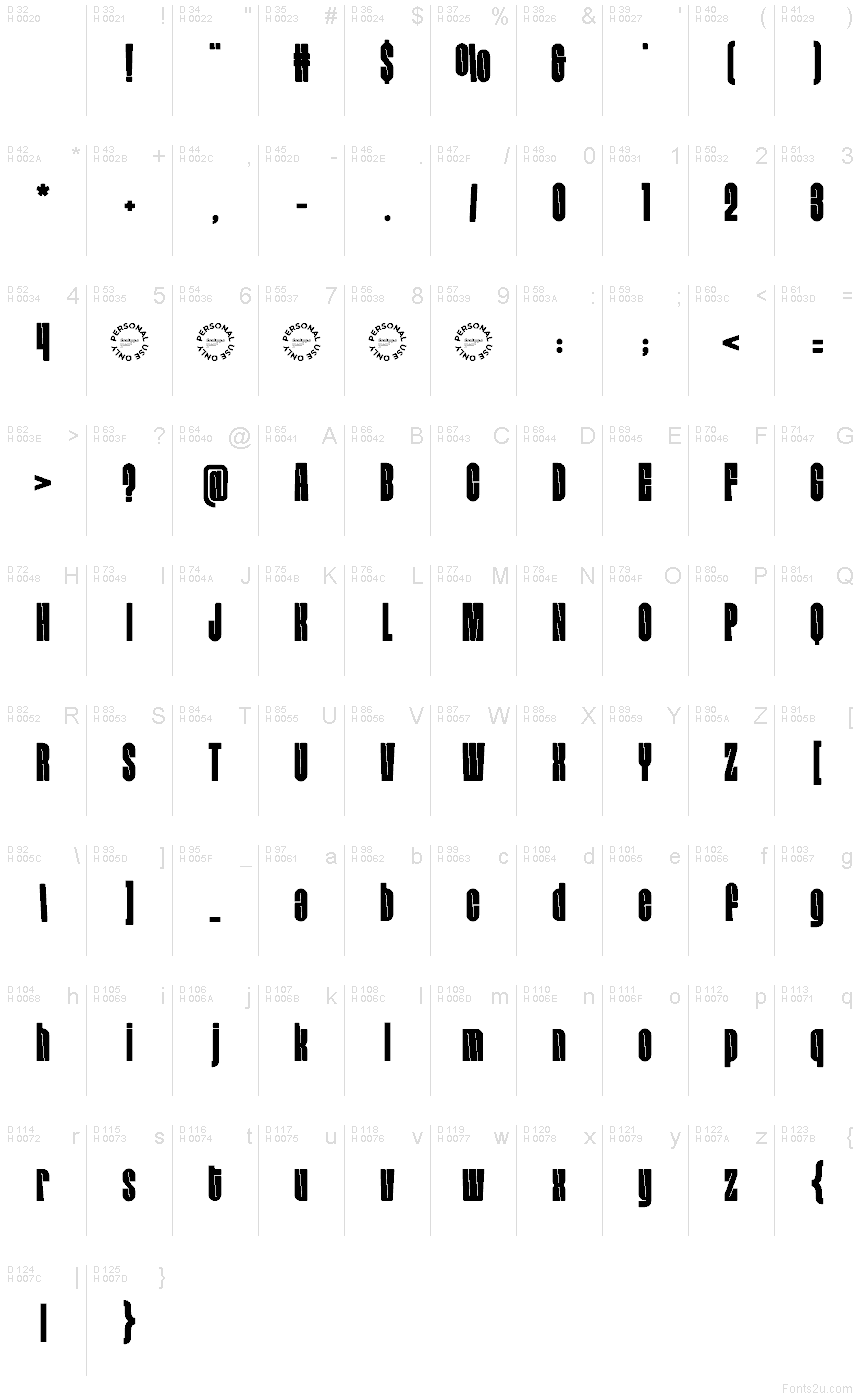
Roxhead font by Furqan Sudirman of Limitype is a free groovy display font. It stands out with tall, pillow-like blocks and glossy vertical cut-ins that read like light hitting wet paint-chunky, rhythmic, and unapologetically loud. The soft corners keep it friendly while the tight width packs impact into narrow spaces, so headlines punch without sprawling.
Using Roxhead, your music-festival posters, funky logos, album covers, event flyers, retro branding, and snack or beverage packaging will land with a thick, inky thump. This free font thrives oversized; let it breathe and keep tracking snug. For copy and captions, pair it with a clean geometric sans to accentuate Roxhead’s juicy weight.